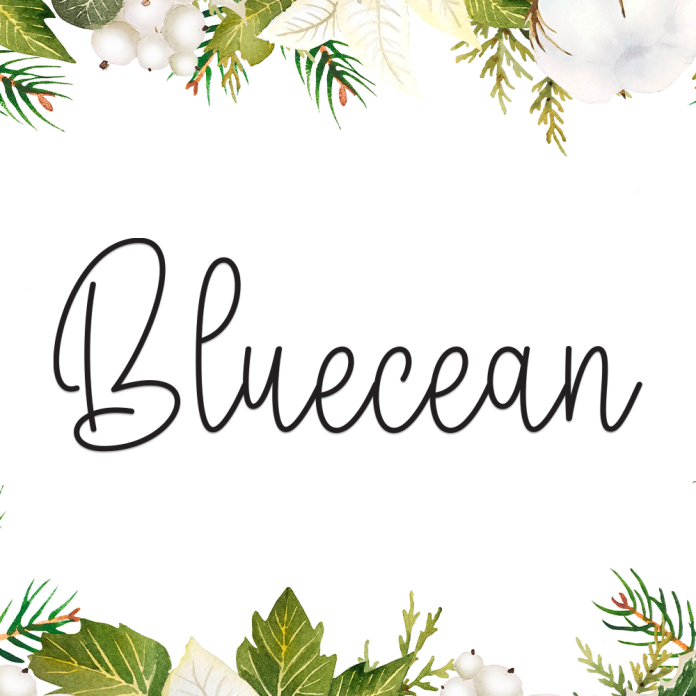
Bluecean is a soft and elegant handwriting font that captures the relaxing rhythm of ocean waves. With its smooth flow and graceful curves, this font brings a peaceful and natural feel to any design.
Perfect for aesthetic quotes, journals, lifestyle branding, packaging, or wedding invitations, Bluecean adds a handwritten charm with a touch of ocean-inspired serenity.
Gentle handwritten script with organic flow
Beautiful letter connections and clean lines
Uppercase & lowercase letters
Punctuation and multilingual support
Perfect for minimalist branding, beauty products, and blogs